When you’re trying to land a cool new job you have to take everything into consideration, including how your resume looks, which is why we’re going to take a look at these 7 best fonts to use on your resume.
When an employer receives your resume, it’s important that they’re not only impressed with your skills and past jobs, but also with the way the papers look, because that’s when they’ll form their first impression.
It’s quite important then, that not only is your resume typed in neatly, but also with a font that looks professional, a font that’s easy to read and that holds some personality. Basically, picking out a typeface is just as important as what you’re going to write because it helps a person form an opinion about you before even finding out the first thing beyond your name.
Human resources experts are quite adamant about the font’s importance, in fact, as they seek those candidates that found the fonts that are not too distracting and that are easy to read, making it easier for them to go through the work experience.
For our list, we went through a number of sources, including Huffington Post and Bloomberg to find which are your best options. Depending on how often they were mentioned, the fonts got a point and were ranked. Without further ado, here are the 7 best fonts to use on your resume.
7. Cambria
If you’re using Microsoft Office, then Cambria is one of those fonts that you’ve probably grown accustomed to. Cambria is a typeface that was designed to read well on computer screens, with the designers behind it hoping it would be the new Times New Roman, which means they’d look great on and off screen. Therefore, if you’re emailing your resume or handing it yourself during your interview, Cambria is bound to look great.
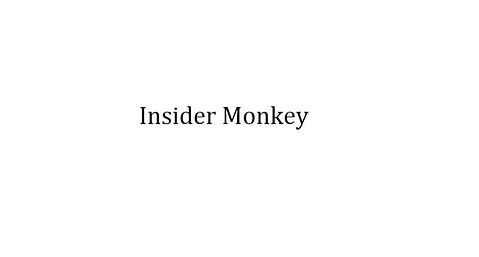
6. Times New Roman
There’s a love-hate relationship regarding Times New Roman. Some people love using it; others are so sick and tired of seeing it that it might as well rate next to Comic Sans as far as popularity goes. Furthermore, there’s a really big chance that everyone else will be using Times New Roman, which could make it a good idea to follow the trend if you’re looking for a more… conservative job. If you’re looking for a creative job, for instance, then you’re better off with other options.
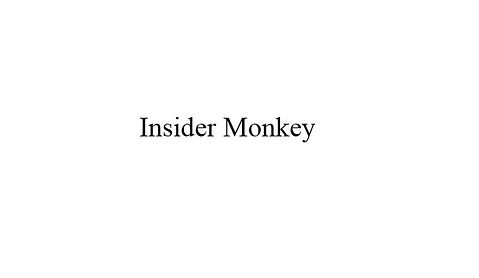
5. Arial
The case with Arial is pretty much the same as with Times New Roman. This is an old typeface, one that’s been around for a long time and that has been used more than enough times. It’s a common font, and we might even go as far as to call it “boring”, but it’s still a popular choice. It’s extremely easy to read, it’s a no-nonsense typeface and it’s a safe bet if you don’t necessarily want to stick out. Even though it’s a controversial choice, it’s still a good one.
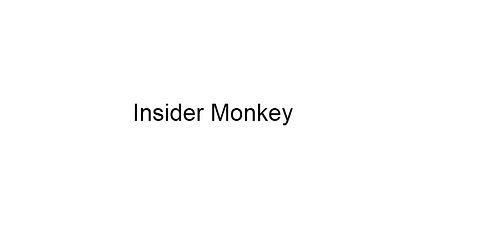
4. Helvetica
There we go, a font that’s actually the favorite of many human resources specialists. This sans-serif typeface is actually considered to be the best font out there by many designers and typographers too, mostly thanks to the clean lines it sports. It also helps that it’s extremely easy to read by everyone. It’s also popular with big corporations who use it in logos, and you can list Microsoft and BMW here, so why wouldn’t this be a good choice for your resume? Either way, it’s easily one of the 7 best fonts to use on your resume.
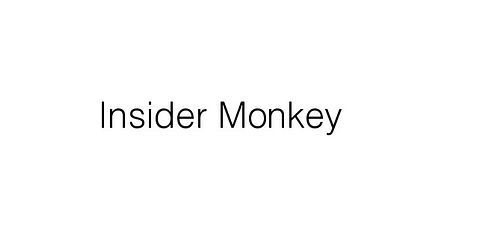
3. Georgia
This is a “thinner” version of Times New Roman if you will. There are some differences, and they make it all easier to read, which is obviously a big plus if you expect someone that’s gone through a few dozen resumes in a day to give yours a second look. There’s also the fact that it was created specifically for higher readability on computer screens, so if you’re going to send your resume in its digital version, this could be a good choice for you.
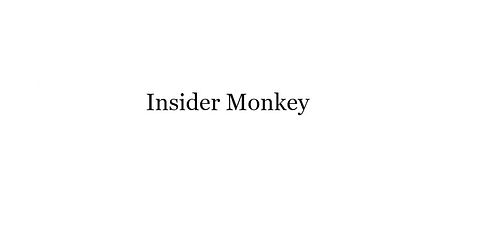
2. Calibri
If you’re a fan of Microsoft Office and using it often, then you’re well aware of this particular font, which has been the default typeface in Word since 2007. It’s a great font that’s easy to read, looks professional, although it’s not too uptight. You might get less points for using this font, however, since everyone knows it’s the default choice in Word, which means you may not have put too much thought into the perfect typeface. It all depends on the person reading your resume, in the end.
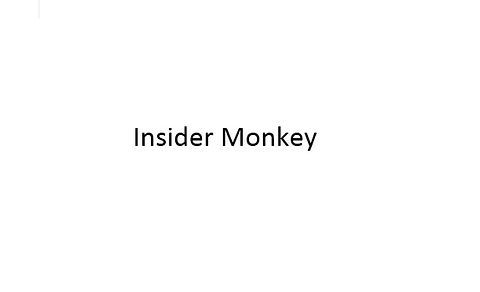
1. Garamond
Much like Times New Roman, Garamond will go down in history as a classic. It’s a timeless typeface that will not go away anytime soon; after all, it’s been hundreds of years since similar fonts have been used in print. Garamond is a modern font, however, that carries out the history it comes with, making your resume look professional and polished. We’re going to add that it’s extremely easy to read, even if the font size is lowered a bit so you can condense the information into those desirable two pages. Either way, Garamond is at the top of the list of the 7 best fonts to use on your resume.